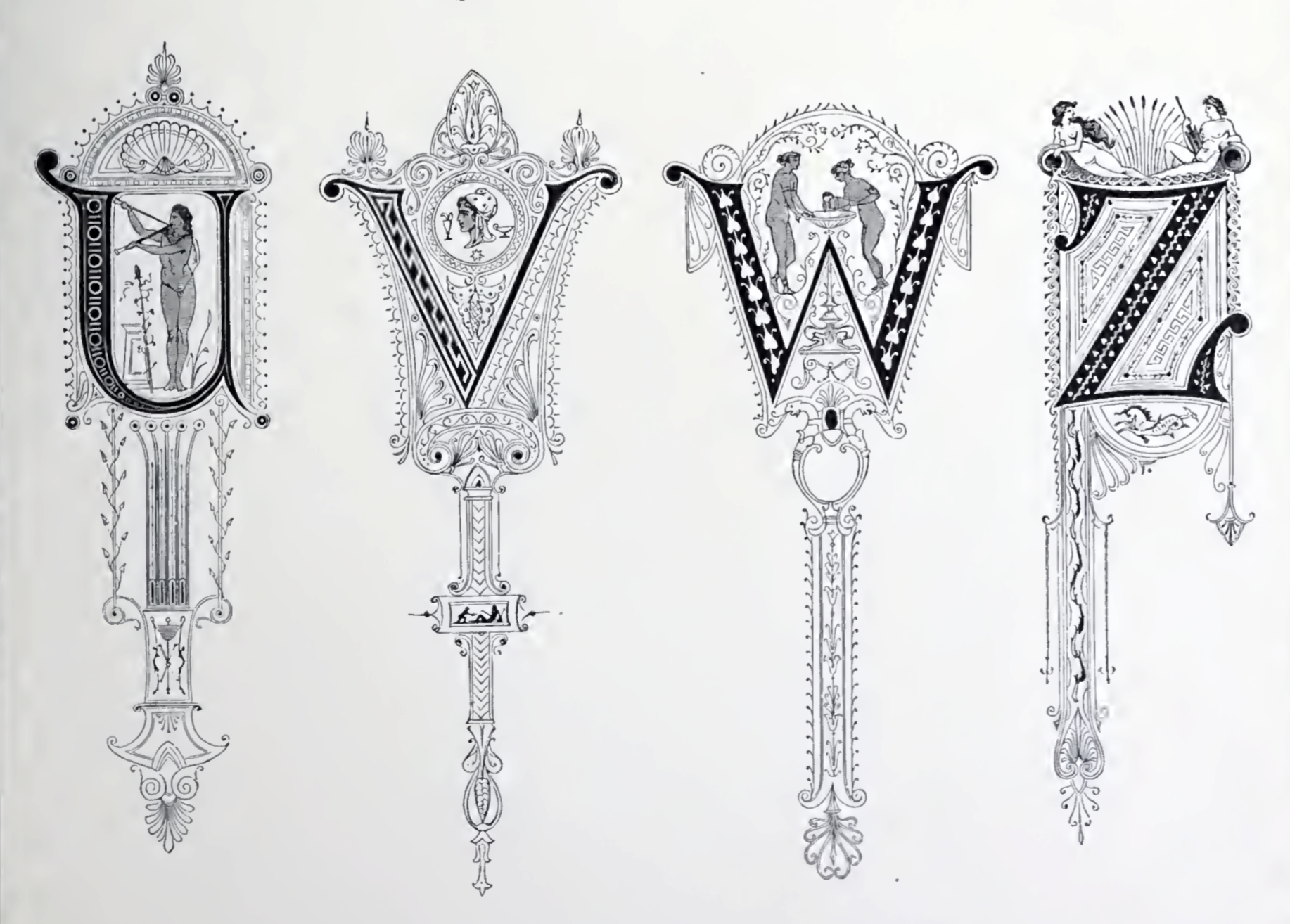
Otto Weisert
Typefounder who ran the Schriftgiesserei Otto Weisert in Stuttgart. Designer of the prototypical Jugendstil font Arnold Boecklin in 1904, a typeface named after the Swis symbolist painter Arnold Böcklin. Arnold Boecklin is available at URW, Linotype, Adobe, Scangraphic, Mecanorma, and Softmaker [where it is known as Jugendstil]. A monolinear version was done in 2020 by Mario Feliciano, called Korrodi.
Otto Weisert also designed the blackletter typefaces Moderne Fette Schwabacher and Brabanter Gotisch (1905). He also made the great-looking art nouveau style Kalligraphia (digital revivals at Linotype, URW, Scangraphic and Elsner&Flake). For recent revivals of Kalligraphia, see Kalligraphia (2012, SoftMaker) and Karin Pro (2019, SoftMaker).
His 1890 catalog has an extensive series of caps typefaces.